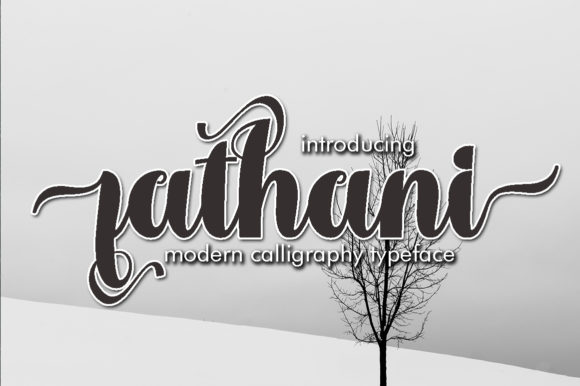
Introducing Fathani, the script font family that exudes elegance and charm. Crafted by the visionary minds at Imun Studio, Fathani brings a touch of sophistication and modern flair to your design arsenal. This font was created to infuse your creative projects with a personal and distinctive voice.
With its captivating curves and flowing lines, Fathani captivates the essence of timeless calligraphy while maintaining a refreshing contemporary edge. It's the perfect font to add a touch of luxury and sophistication to your branding, logos, wedding invitations, social media graphics, and any other design project that demands a touch of elegance.
Fathani's versatility knows no bounds. Whether you seek a timeless aesthetic or a modern touch, this font effortlessly adapts to your creative vision. Its graceful strokes dance across the page, evoking a sense of romance and nostalgia. Unleash your creativity and let Fathani guide you towards an extraordinary design experience.
Immerse yourself in the world of Fathani and discover a symphony of emotions waiting to be expressed through your designs. This font is more than just a collection of letters; it's an invitation to embark on a creative journey where imagination and artistry intertwine.